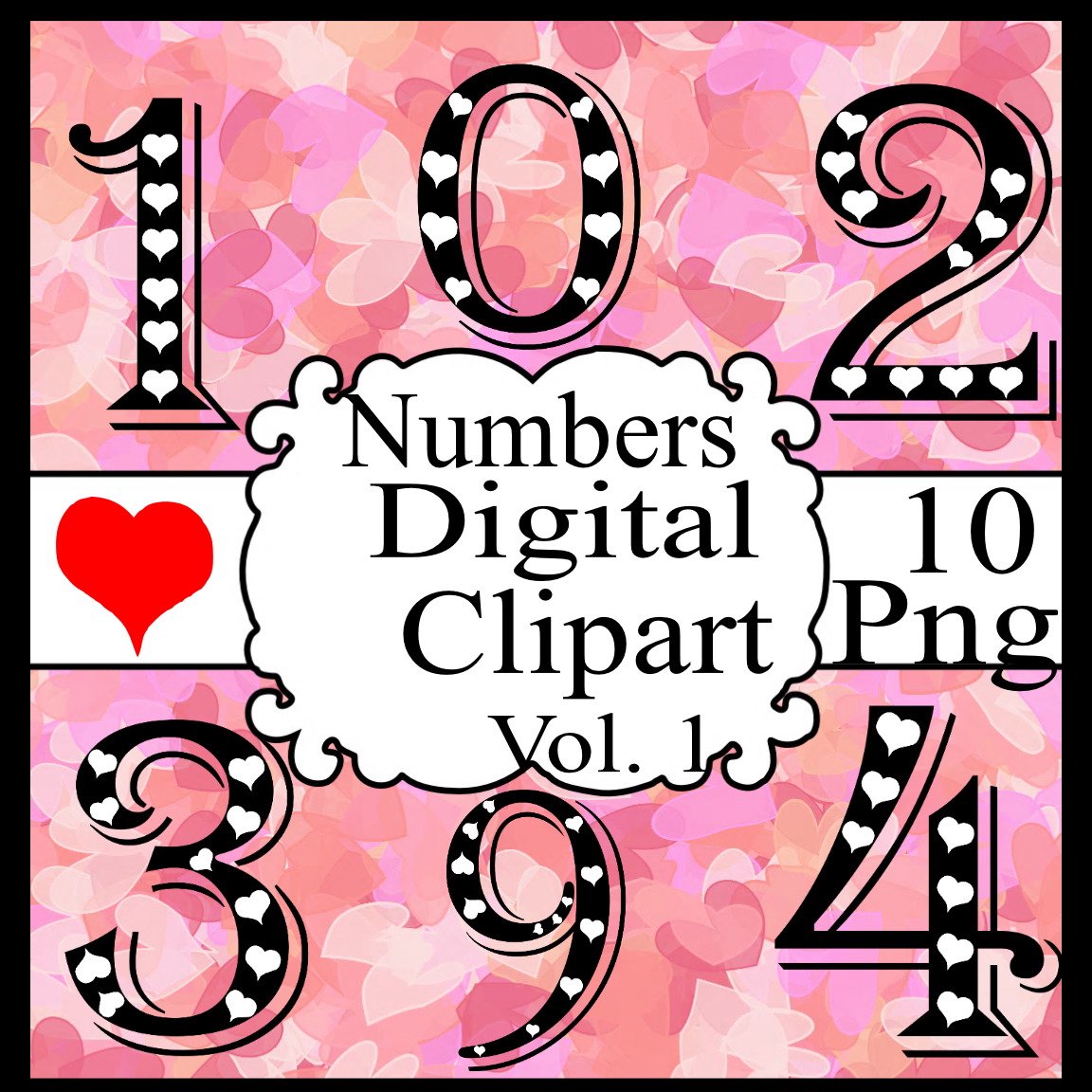
Mix Numbers Vol. 1-Fonts-Valentine's Day-Digital ClipArt-T-shirt-Gift Tag-Cards
Mix Numbers Vol. 1-Fonts-Valentine's Day-Digital ClipArt-Art Clip-Banner-T-shirt-Background-Gift Tag-Website-Notebook-Gift Cards.